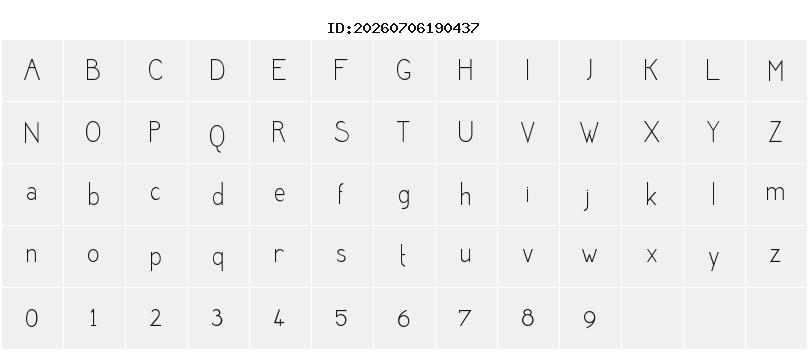
Desereted Preview
• Font Name: Desereted
• Full Font Name: Desereted
About Desereted.ttf
Desereted.ttf is a modern, elegant sans-serif font designed for ultimate readability and visual harmony. Perfect for branding, headlines, web design, and print materials.